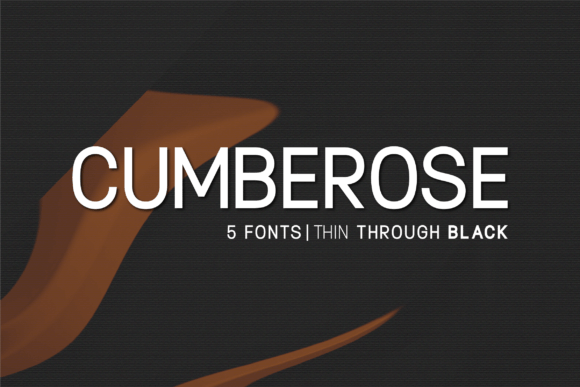
Embrace elegance, embrace modernity, embrace distinction with Cumberose, the font family that transcends boundaries of style and creativity. With five weights—THIN, LIGHT, REGULAR, BOLD and BLACK—Cumberose outfits you with a design wardrobe for every occasion. From understated elegance to striking power, Cumberose flexes to your project's every need, lending a timeless essence to logos, advertising, social media posts, and more.
Experience the versatility of Cumberose, a font family that adapts like a chameleon to meet your design vision. Its sans-serif structure provides a clean backdrop for your words, while its character set ensures cross-platform compatibility for maximum impact. Let Cumberose take center stage in your Christmas cards, adding a touch of refined charm to your holiday greetings.
Immerse yourself in Cumberose, a font family born from the creative mind of Huntype, a visionary type foundry renowned for their artistic excellence. Each character in Cumberose is a testament to the passion and precision that defines Huntype's work, ensuring that your projects not only look professional but resonate with an emotional depth that captivates your audience.
Cumberose isn't just a font family; it's an investment in design excellence, a key to unlocking your creative potential. Let Cumberose elevate your work to new heights of sophistication and style. Experience the Cumberose difference today and embark on a creative journey that will set your projects apart from the ordinary.